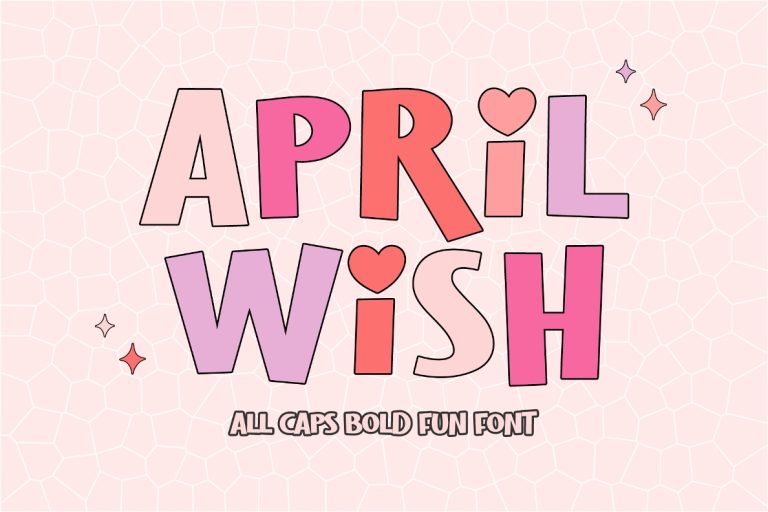
April Wish
April Wish is all caps font with bold and cute vibes.
April Wish is beautiful font for cute designs, such as t-shirt, display, crafting, sticker, sublimation, and many more.
- All Caps
- Numeral and Punctuation
- Most Multilingual Accent